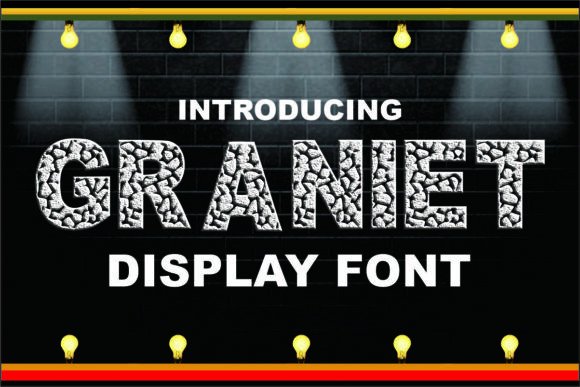
Unleash your creativity with Graniet, a captivating duo font that ignites imagination and transforms your designs into masterpieces. This display and decorative font is the perfect companion for crafting stunning logos, mesmerizing digital designs, eye-catching presentations, and unique clothing that leaves a lasting impression.
Journey into the realm of modern elegance with Graniet, a font that dances across your screen with grace and sophistication. Its meticulously crafted characters possess an innate charm that elevates your designs, making them stand out from the crowd. Whether you're a seasoned designer seeking to captivate your audience or a novice just starting your creative journey, Graniet empowers you to create designs that resonate with your soul.
Immerse yourself in a world of boundless possibilities with Graniet. Its versatility allows you to effortlessly adapt to any project, from delicate crafts that require intricate detailing to bold digital designs that demand attention. Unleash your creativity and watch as Graniet transforms your ideas into captivating realities.
With Graniet, you hold the key to unlocking a new era of artistic expression. Its ability to seamlessly blend modern aesthetics with a touch of playful charm makes it the perfect choice for creating logos that leave an indelible mark. Let your brand shine with a logo crafted with Graniet, a font that speaks volumes about your commitment to excellence and innovation.
Step into the spotlight with Graniet, a font that empowers you to create presentations that captivate and inspire. Its captivating curves and bold lines command attention, transforming your slides into dynamic expressions of your ideas. Engage your audience with a visual feast that leaves them spellbound and eager to hear more.
Elevate your fashion game with Graniet, a font that adds a touch of exclusivity to your clothing designs. Create t-shirts, hoodies, and accessories that exude individuality and style. Let your garments speak for themselves as they embody the essence of modern fashion, attracting attention wherever you go.
Graniet is more than just a font; it's a gateway to a world of limitless creativity. Embrace its versatility and watch as your designs take flight, captivating audiences and leaving a trail of awe in their wake. Experience the magic of Graniet today and unlock the true potential of your imagination.